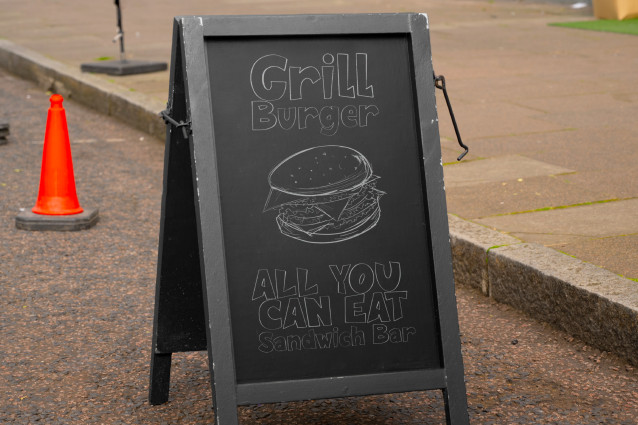
Path Note Display Font
Path Note Display Font is suitable for any projects such as: logos, branding projects, homeware designs, product packaging, mugs, quotes, posters, shopping bags, t-shirts, book covers, name card, invitation cards, greeting cards, label, photography, watermark, special events, and all your other lovely projects that need a Outline Bold Handwritten taste.